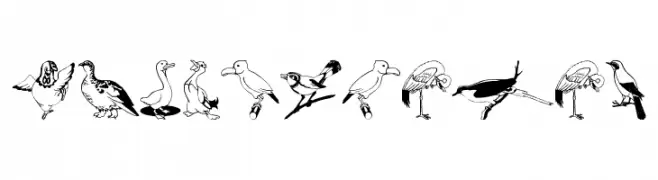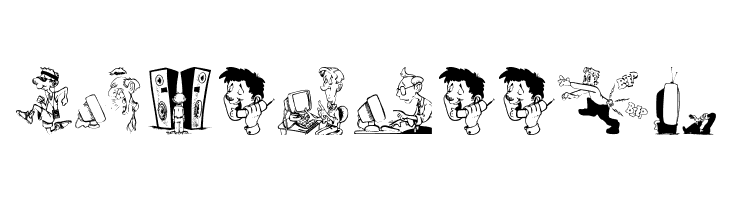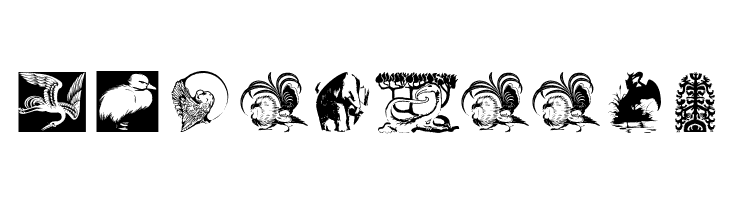
A display font featuring illustrated birds and owls as characters.
A playful font with letters formed by illustrations of children in various activities.
A decorative font with whimsical aquatic-themed illustrations for each character.
A decorative font with stylized big cat illustrations for each character.
A decorative font with farm-themed illustrations for a rustic aesthetic.
A display font featuring bird illustrations as characters.
Cartoonish, technology-themed illustrative font with unique character drawings.
A decorative font featuring evolutionary silhouettes within bold, 3D characters.
Illustrative animal and insect silhouette font with decorative glyphs.
Bird-themed dingbat font with diverse bird illustrations.